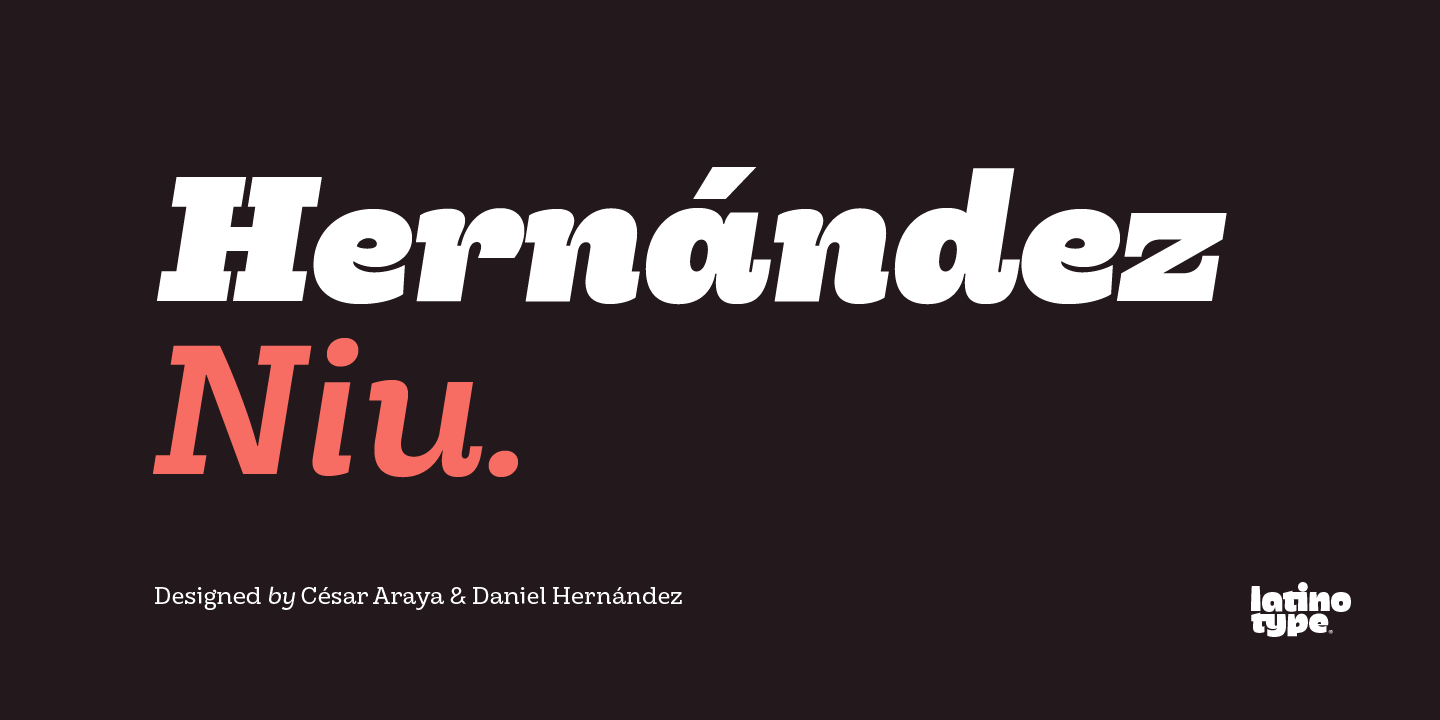
Hernández Niu Font is perfect for Latin cultural design projects including Hispanic heritage centers, Spanish language publications, Latino cultural organizations, Mexican restaurants, Spanish cultural festivals, Latin American tourism campaigns, Hispanic community centers, and authentic Latino marketing initiatives. This vibrant typeface works perfectly for Spanish language schools, Latino arts organizations, Hispanic cultural museums, Latin music venues, and projects that celebrate the rich linguistic heritage and cultural diversity of Hispanic and Latino communities.
What makes Hernández Niu Font exciting is its authentic Latino character that perfectly captures the essence of Hispanic cultural pride and Latin American sophistication. The font features expressive letterforms with cultural flair that reflects the vibrant energy and artistic richness of Hispanic traditions. Its cultural design elements embody the spirit of Latino heritage and Hispanic community pride, making it perfect for projects that need to convey culture, warmth, and connection to Hispanic traditions. The carefully crafted Latino proportions create an atmosphere of cultural sophistication and Hispanic authenticity.
Hernández Niu Font comes in multiple family variations including cultural, vibrant, traditional, and Hispanic styles. Each weight maintains the distinctive Latino character while offering different levels of cultural intensity and Hispanic presence. The font family includes Latino alternates, cultural ligatures, and Hispanic variations that provide designers with comprehensive options for creating truly authentic and culturally resonant typographic compositions that celebrate Hispanic excellence.
Whether you're designing Latino branding, creating Hispanic marketing materials, or developing cultural promotional graphics, Hernández Niu Font Free Download provides the perfect typographic foundation for projects that celebrate Hispanic excellence and Latino sophistication. This remarkable typeface transforms ordinary text into compelling expressions of Latino wisdom and Hispanic cultural elegance. Download this vibrant font today and celebrate your design projects with the Hispanic authenticity and Latino cultural refinement that captures the essential spirit of Hispanic heritage and Latino community pride.